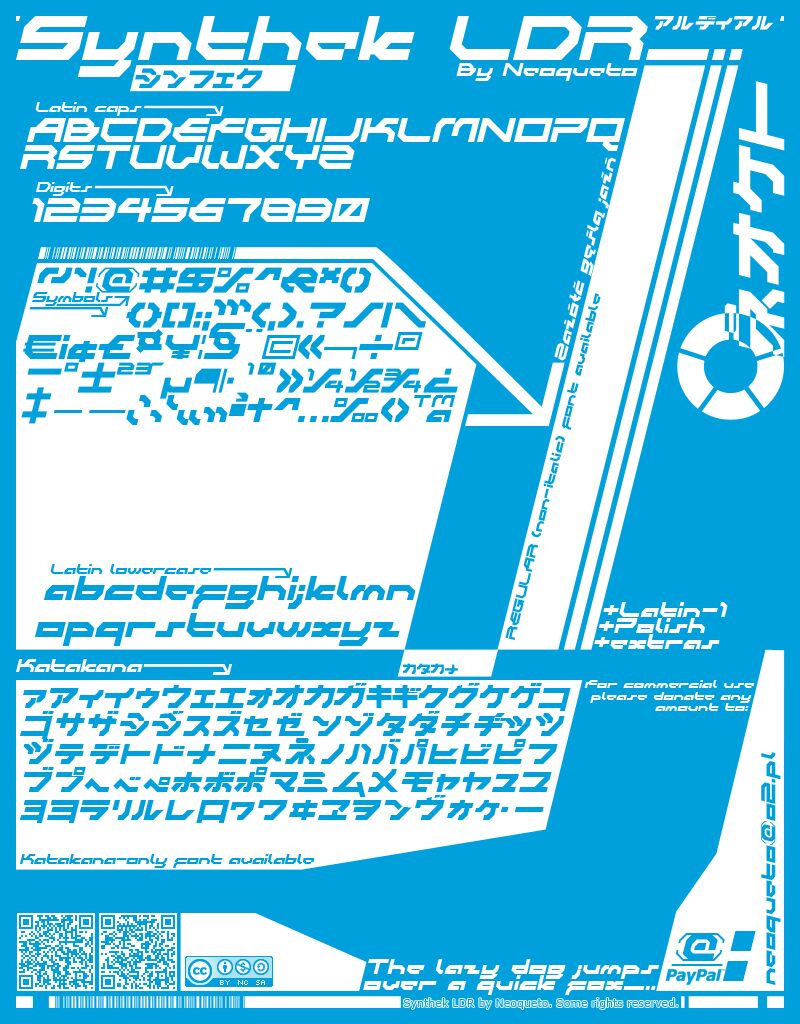
Synthek LDR
Synthek LDR by Neoqueto Nowak is a free futuristic techno display font with broad, angular lettering and a hard-edged industrial profile. Its sharply cut corners and forward lean suggest racing graphics and machine housings. The stance is fast and mechanical.
A motorsport brand or gaming studio could use it for logos, event posters, and title cards. Merchandise gains the same engineered character. Across these uses, its stretched forms tie the typography to speed, hardware, and competitive technology.